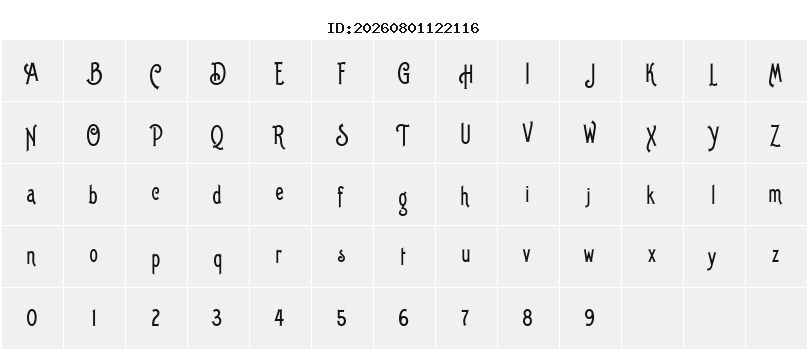
• Font Name: LHF Billhead 1890
About LHF Billhead 1890.ttf
LHF Billhead 1890.ttf is a modern, elegant sans-serif font designed for ultimate readability and visual harmony. Perfect for branding, headlines, web design, and print materials.